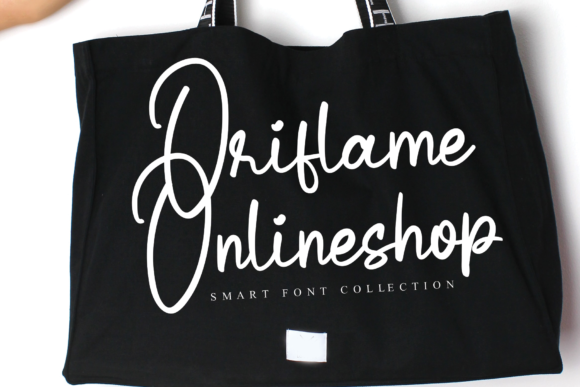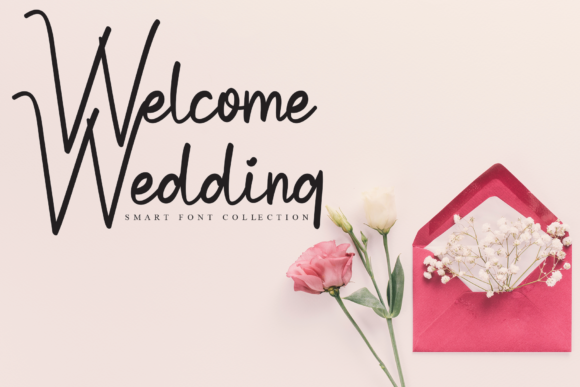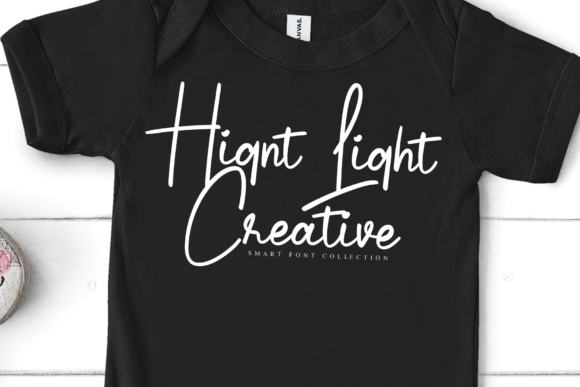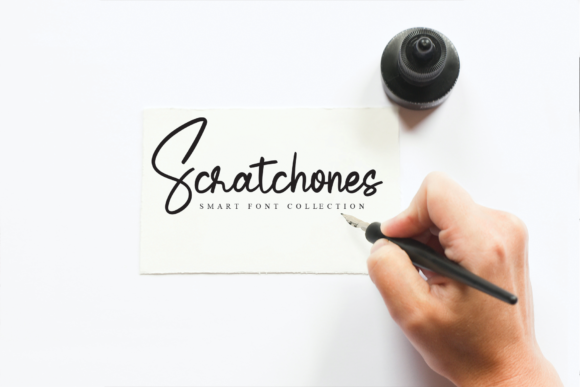
Adding a Touch of Luxury to Your Designs
That’s where the Butter Chocolate Font comes in – a beautiful, light handwritten font that adds a touch of luxury to any design project. Its unique feel and stunning impact will elevate your work, making it stand out from the crowd. Whether you’re a seasoned pro or just starting out, this font is a valuable addition to your design toolkit, helping you to create stunning visuals that capture the imagination of your audience.
Key Features of “Butter Chocolate Font”
- Font Family: A unique, hand-drawn font designed to evoke the warmth and richness of chocolate.
- Unique Characteristics: Features intricate, hand-drawn details and subtle texture, giving it a distinctive, artisanal feel.
Designer Review: Butter Chocolate Font
Overall, I think the Butter Chocolate Font has some great qualities that make it a compelling choice for designers. ✨
- Unique, hand-drawn style: The font has a charming, whimsical feel that’s perfect for adding a touch of personality to branding or packaging.
- Highly legible: Despite its decorative nature, the font is surprisingly easy to read, making it a great choice for body text or headlines.
- Perfect for food-related projects: The font’s name and design make it a natural fit for projects involving food, baking, or desserts.
- Limited character set: The font’s character set is relatively small, which may limit its usability in certain situations.
- Lack of language support: The font may not support all languages or characters, which could be a problem for designers working on global projects.
Overall, I think the Butter Chocolate Font is a great choice for designers who want to add a touch of whimsy and personality to their projects. While it may not be suitable for every project, it’s a great option for food-related projects or branding that needs a unique, hand-drawn feel.
The Butter Chocolate Font is ideal for:
- Creativity and design projects
- Wedding and event invitations
- Any project that requires a playful and whimsical touch
For the best results, use the font in combination with other design elements that complement its playful and nostalgic feel.